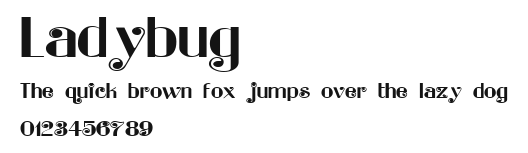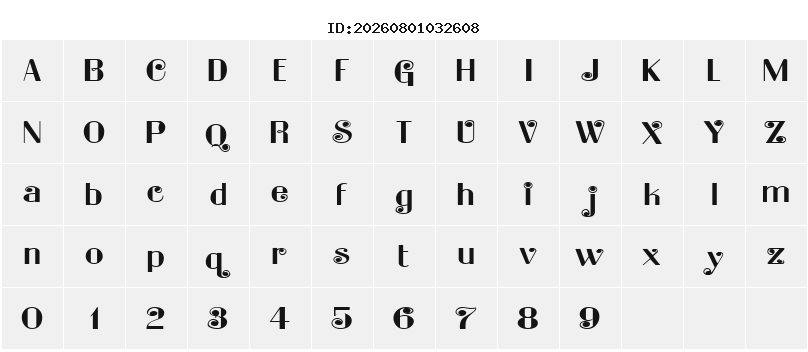
Ladybug.ttf is a modern, elegant sans-serif font designed for ultimate readability and visual harmony. Perfect for branding, headlines, web design, and print materials.